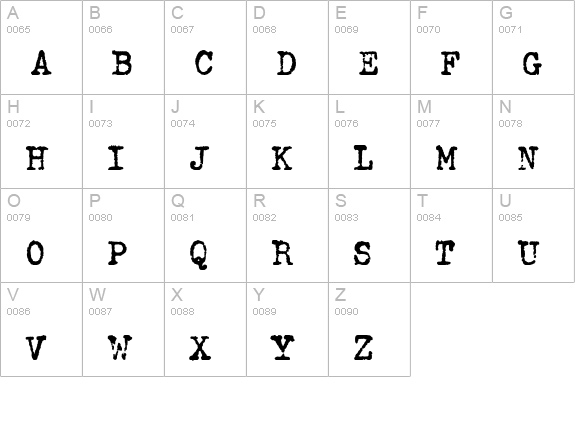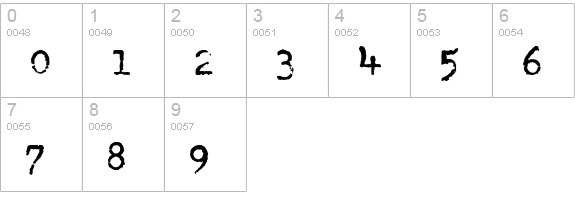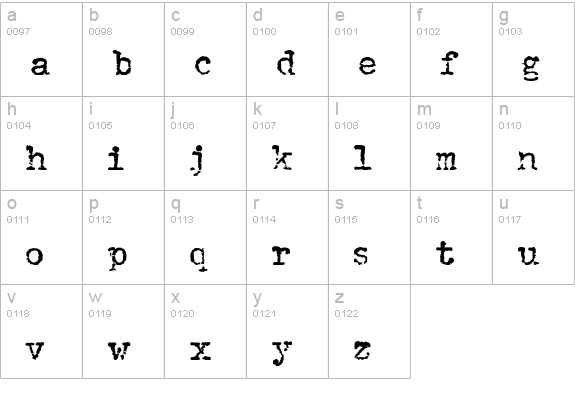
DumbOldTypewriter Bold is a strong, high-contrast variant in the DumbOldTypewriter typeface family \xE2\x80\x94 well suited to headlines, attention-grabbing titles, and strong calls-to-action.
Introducing DumbOldTypewriter Bold font - a classic and bold typeface that exudes a vintage charm reminiscent of old-fashioned typewriters. This font is perfect for adding a touch of nostalgia and personality to your designs, whether you're creating invitations, posters, or branding materials. With its distinct and quirky appearance, DumbOldTypewriter Bold font stands out and makes a statement. The chunky letters and uneven spacing give it a unique character that is both eye-catching and memorable. But here's the best part - DumbOldTypewriter Bold font is available for free download at FontsMarket.com. Yes, you read that right! You can easily get your hands on this charming font without spending a penny. So why wait? Add DumbOldTypewriter Bold font to your collection today and let your creativity shine with this timeless and versatile typeface.